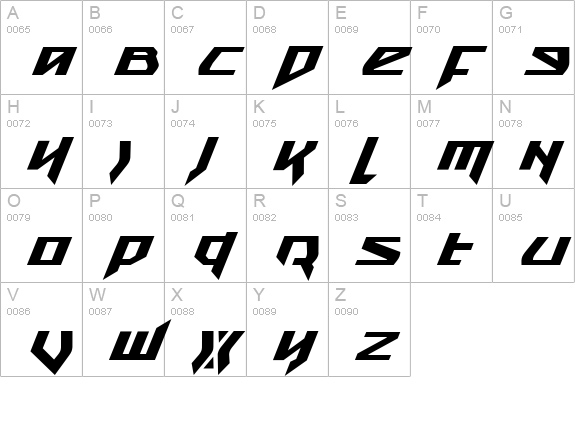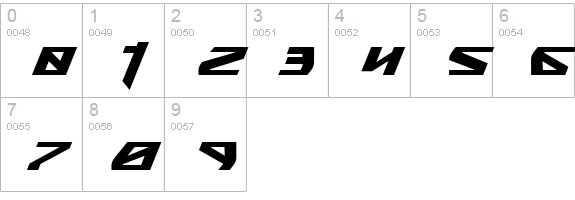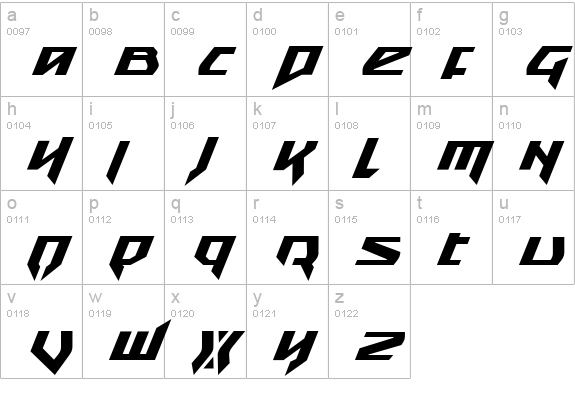
Snubfighter Bold Italic is a strong, high-contrast, italic variant in the Snubfighter typeface family \xE2\x80\x94 well suited to headlines, attention-grabbing titles, and strong calls-to-action.
Snubfighter Bold Italic is a striking and dynamic font that exudes confidence and modernity. With its bold strokes and italicized design, this font is perfect for making a bold statement in your designs. Whether you're creating eye-catching headlines or adding a touch of flair to your projects, Snubfighter Bold Italic is sure to grab attention. The best part? Snubfighter Bold Italic is available for free download at FontsMarket.com. Simply head over to the website and add this unique font to your collection without any cost. Take your designs to the next level with Snubfighter Bold Italic and make a lasting impression on your audience.